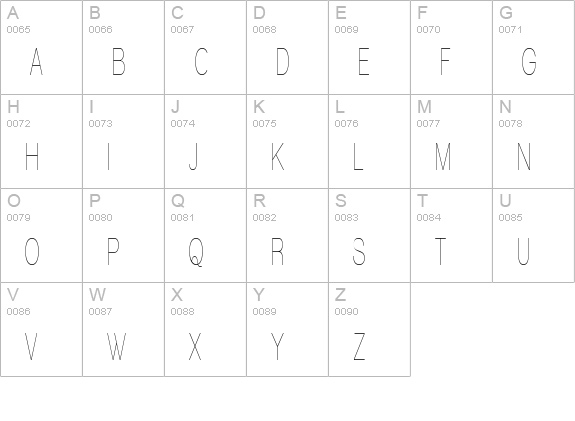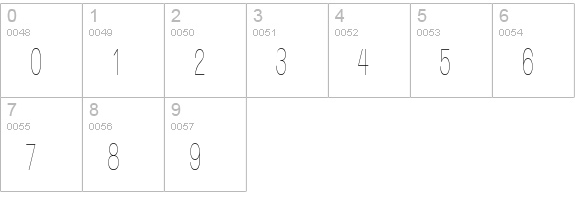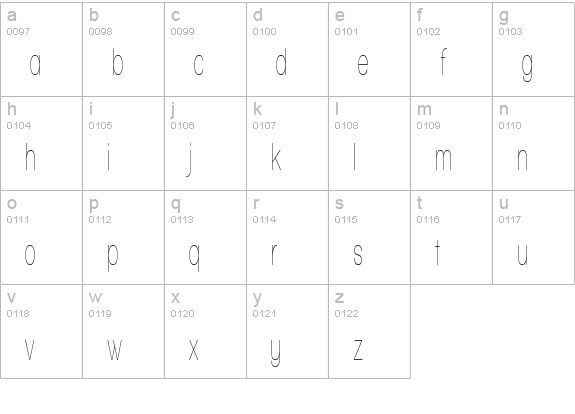
Introducing Walkway UltraCondensed, a sleek and modern font that exudes professionalism and sophistication. With its clean lines and condensed letterforms, this typeface is perfect for projects that require a refined and elegant touch. Walkway UltraCondensed is designed to make a bold statement while maintaining readability and legibility. Its narrow width allows for more text to fit in a limited space, making it ideal for headlines, logos, and any other design elements that require a compact yet impactful presentation. This versatile font offers a wide range of weights, from light to bold, allowing for various design possibilities and ensuring that your message stands out with the perfect emphasis. Whether you are creating a minimalist poster, a sleek corporate identity, or a stylish website, Walkway UltraCondensed has got you covered. What makes Walkway UltraCondensed even more appealing is that it is freely available to download at FontsMarket.com. This means that you can easily access and utilize this remarkable font for both personal and commercial projects without any cost. Its availability ensures that every designer can have access to high-quality typography, enabling them to bring their creative visions to life. So, why settle for ordinary when you can elevate your designs with Walkway UltraCondensed? Download this exceptional font today from FontsMarket.com and embark on a journey of timeless elegance and professionalism.